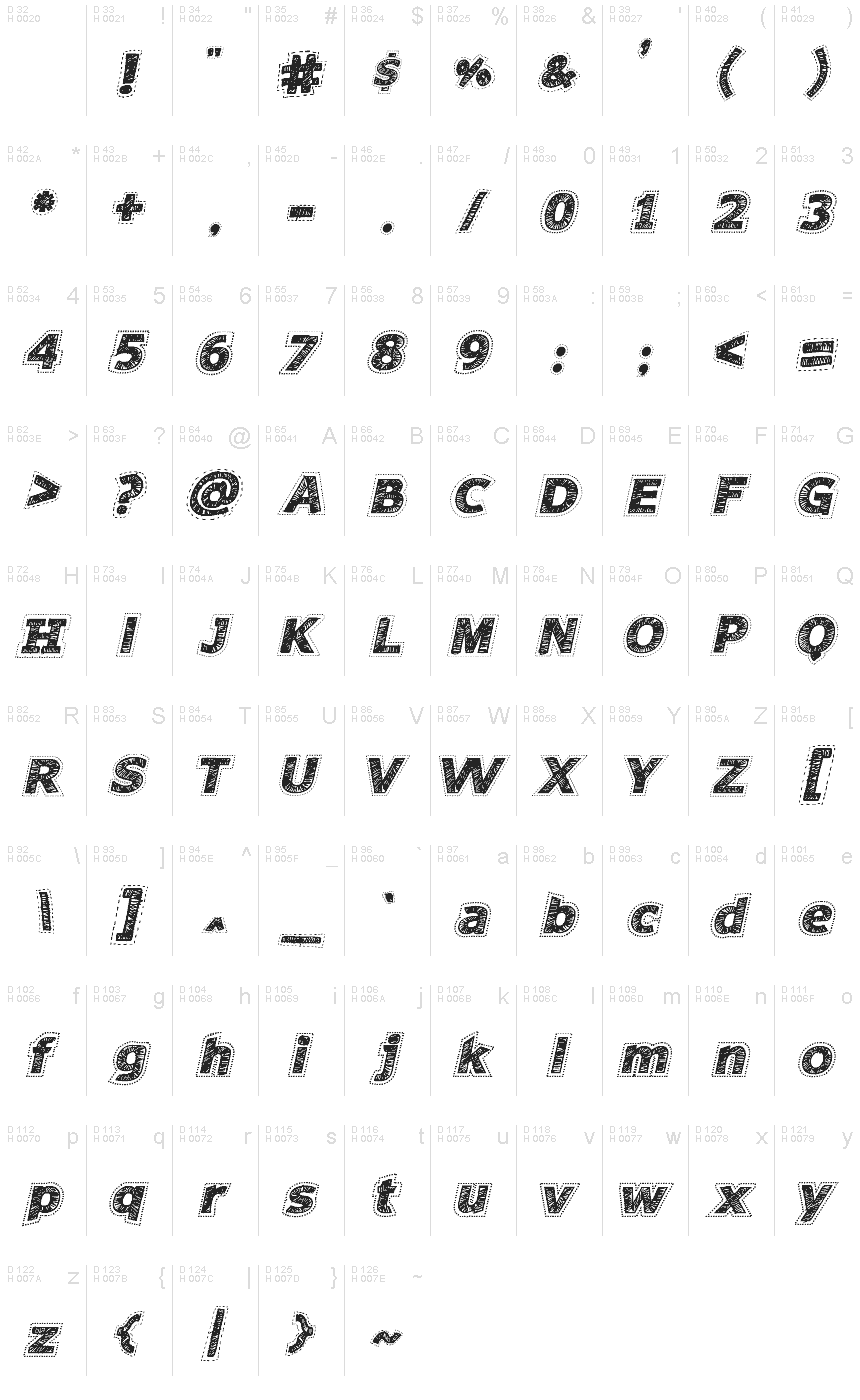
Needlework Perfect Italic
Needlework Perfect Italic font is designed by Galdino Otten Fonts that combines bold decorative style with an alluring handcrafted feel. The display typeface has a textured finish, a vintage-inspired aesthetic, and intricate detailing that gives it an eye-catching appearance. To help with the font integration, letters are presented against a dark background.
Downloading this free display font has numerous uses: book covers, magazine pages, headlines and sub-headlines in newspapers and websites, movie posters, signs for storefronts and restaurants alike. It is also perfect for packaging designs of coffee bags, chocolate bars or premium products!